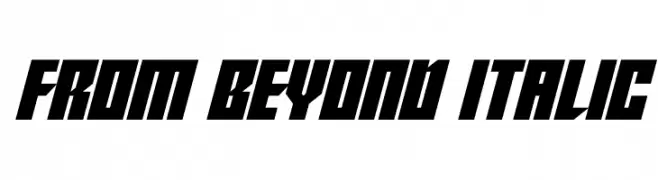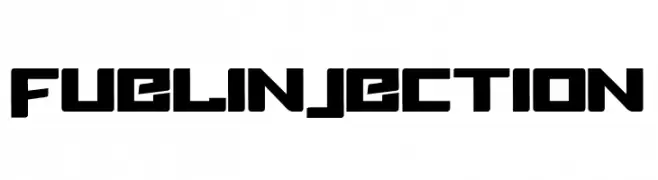
A playful, bold handwritten font with smooth, rounded strokes.
A tall, slender, and whimsical font with a hand-drawn feel.
A bold, decorative font with a spooky and whimsical style.
A bold, angular font with high contrast and geometric design.
A bold, italic, and angular font with a futuristic and dynamic style.
A flowing, cursive script font with elegant loops and smooth connections.
A bold, distressed font with a rugged, vintage aesthetic.
A bold, geometric font with a futuristic, industrial style.
A bold, italicized font with sharp, angular lines and a futuristic style.
A playful, handwritten font with bold, rounded strokes and a casual style.